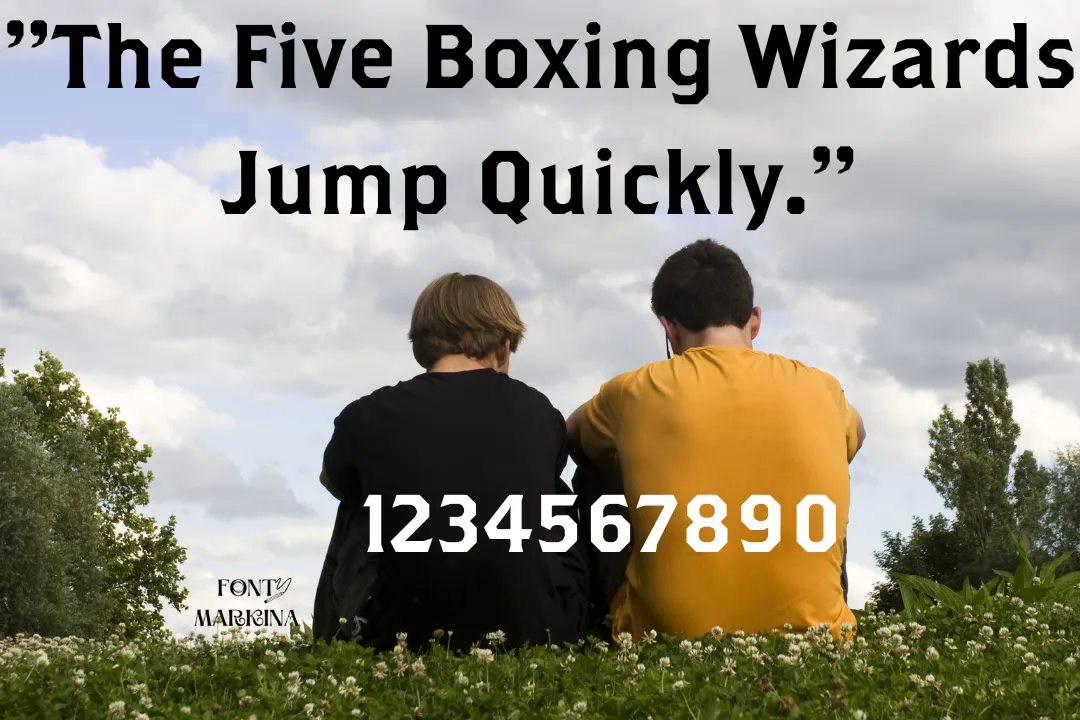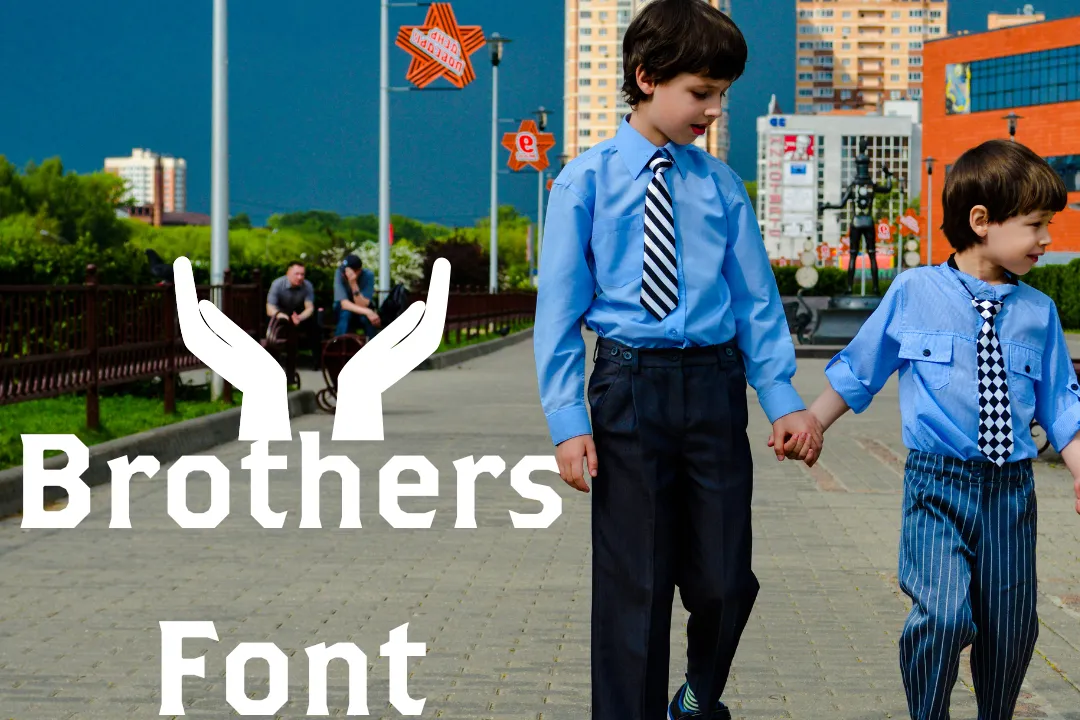
Brothers Font is a display font family. In 1999, it was released in the market for the use of the general public A very popular foundry named Emigre foundry released this typeface. The original developer of this attractive font is John Downer. He works hard for the creation of this font family.
One best features of this typeface is that it comes in four stylish styles. Its advanced styles are OT Bold, OT Regular, OT Super Slant, and OT Word Logos. This stunning family is available in more than 250 Glyphs. Because it supports all languages, it is popular everywhere.
Uses of Brothers Font
This classy typeface is impressive among all designers because of its advanced features. It is best for any formal or professional document. This font is useful for resumes and cover letters for your business reports and presentations.
Mostly, this Brothers font is used for printing items and packaging items. In transportation systems, this family is frequently used. After using this typeface in your works and plans you will get the best response from your clients and audience.
It is also well suited for many projects such as wedding invitation cards, movie posters, Phrases, and even restaurant menus. You can also use it for headlines, ads related to different products, billboards, and other short blocks of text. Here, you can make the pairing of Bertram font with this one.
Brothers Font View
| Name | Brothers Font |
| Designer | John Downer |
| Style | Display |
What is the type of Brothers Font?
It is a display typeface that was released in 1999 and contains four advanced styles and a lot of characters.
Where we can use Brothers Font?
There are many places in which this typeface is commonly used like Book covers, emblems, posters, banners, and so on.